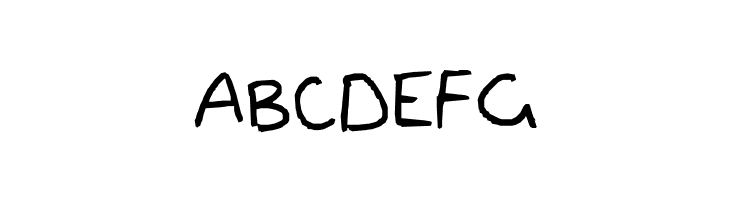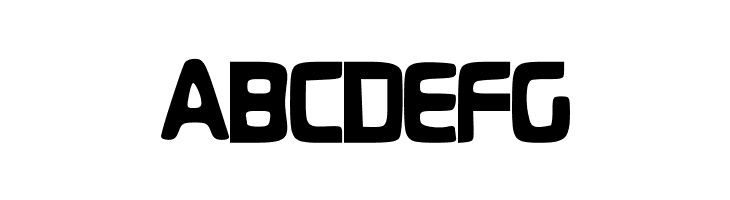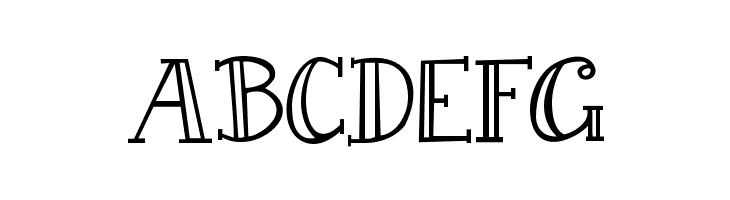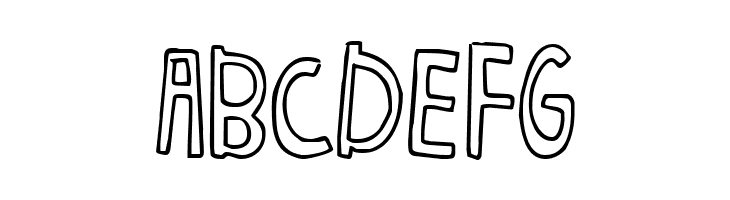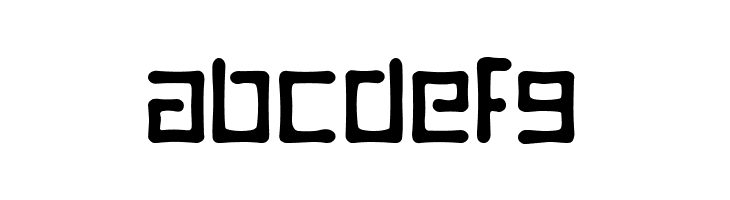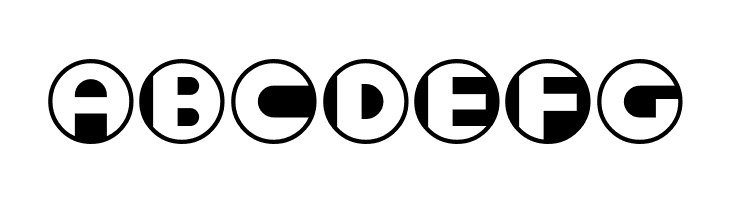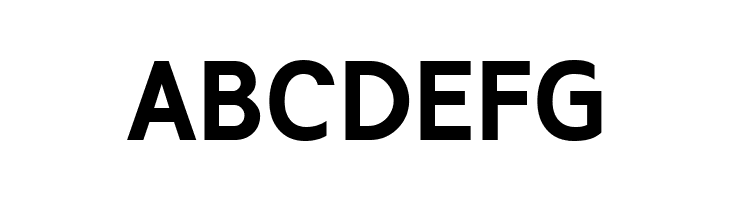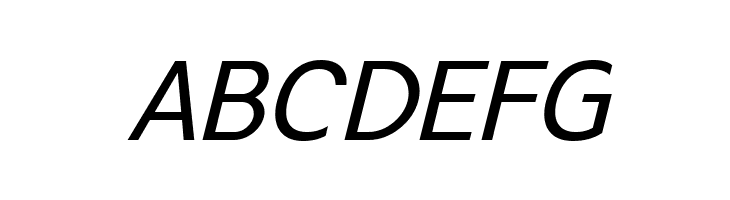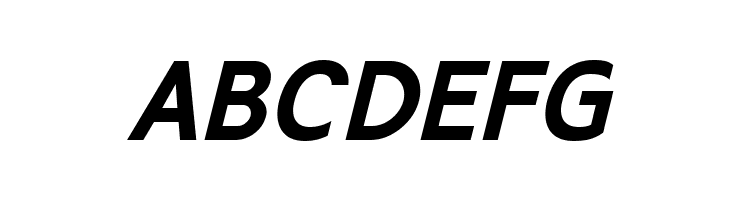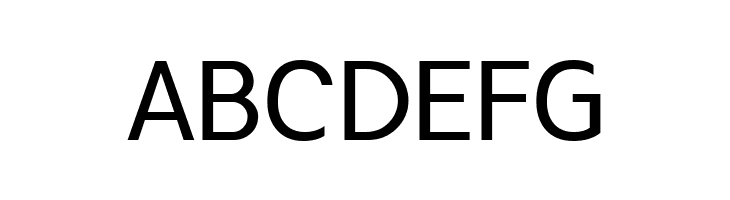
Adventuring Font
A bold, playful font with dynamic and slightly irregular letterforms.
Clarkie Font
A playful, handwritten font with heart-shaped elements and bold, irregular strokes.
Credit Card Font
A bold, rounded font with a playful and modern style.
CreditCard Font
A bold, rounded font with a playful and approachable style.
DesignerBlock Font
A bold, geometric font with rounded edges and a modern, futuristic style.
Digitalis Font
A modern, geometric font with rounded edges and bold characters.
Digitalis Boneface Font
A bold, rounded font with a modern, geometric style.
DigitalisBoneface Font
A bold, geometric font with rounded edges and a modern, playful style.
Excite Font
A modern, clean sans-serif font with geometric letterforms and consistent stroke widths.
Excite Bold Font
A bold, modern font with strong geometric shapes and clear readability.
Excite Bold Italic Font
Excite Italic Font
A sleek, modern italic font with smooth curves and a professional appearance.
ExciteBold Font
A bold, modern font with thick strokes and a strong presence.
ExciteBoldItalic Font
A bold, italic font with a modern and dynamic style.
ExciteItalic Font
A modern, italicized font with medium contrast and normal spacing.
fontdizajnesrki 1 Font
A geometric, futuristic font with bold, outlined characters.
GammaRay Font
A bold, rounded font with a modern and playful style.
Hapshash Font
A bold, dripping font with a playful, liquid-like appearance.
Haven't Slept in Two Days Font
A playful, hand-drawn font with outlined, quirky characters.
Havent Slept in Two Days Bold Font
A playful, hand-drawn font with bold, uneven outlines and a whimsical style.
Insecurity Font